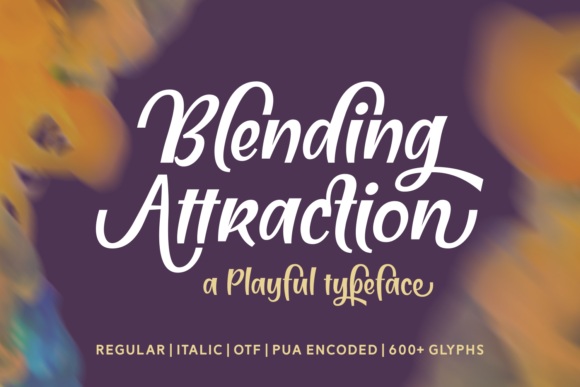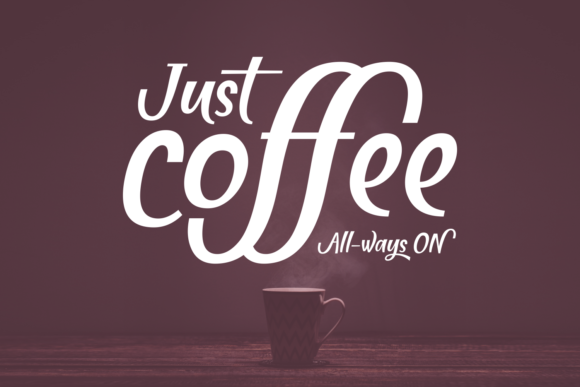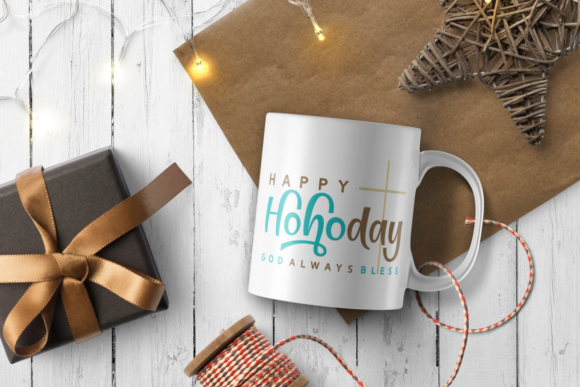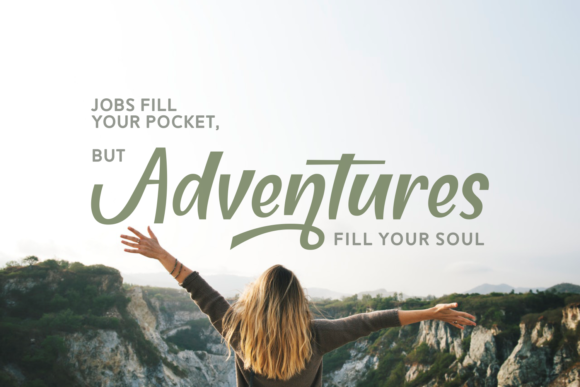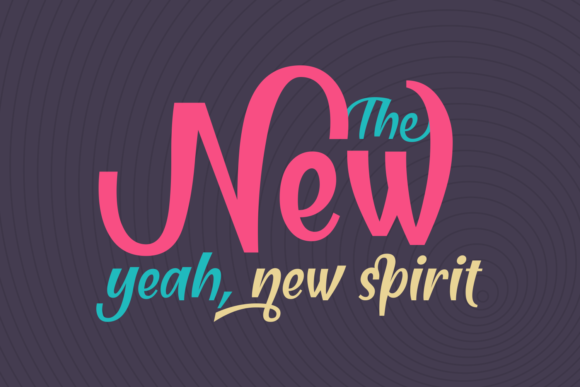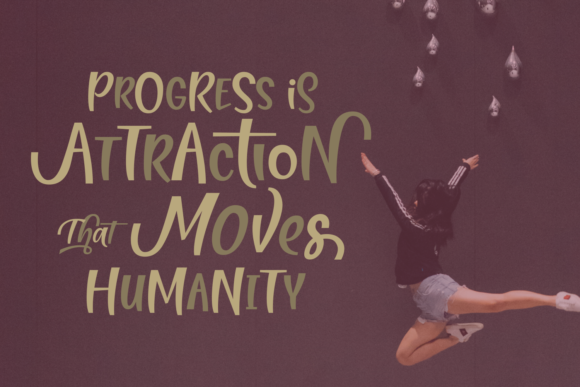
Blending Attraction Font
About Blending Attraction Font
The Blending Attraction is a whimsical script font that exudes a playful style while retaining a striking look. This font is characterized by its whimsy, making it an ideal choice for designs that require a touch of fun and uniqueness. The inclusion of two styles within this font provides a wealth of creative opportunities, allowing designers to craft multiple distinctive designs with just one download.
The playful style of The Blending Attraction injects a sense of joy and creativity into any project it graces. The whimsical nature of the script adds a lighthearted and carefree quality, making it well-suited for a variety of creative applications.
The versatility of The Blending Attraction is further enhanced by the inclusion of two styles. This feature empowers designers to experiment and create diverse designs within the same font family. Whether used for branding, logos, posters, or any other design project, The Blending Attraction adapts effortlessly to different creative contexts.
In essence, The Blending Attraction goes beyond being just a font; it’s a playful and whimsical design tool that offers a range of possibilities. Its ability to evoke a fun and unique feel makes it suitable for a broad spectrum of designs, adding a touch of creativity to branding, posters, and various other projects that call for a distinctive and engaging aesthetic.